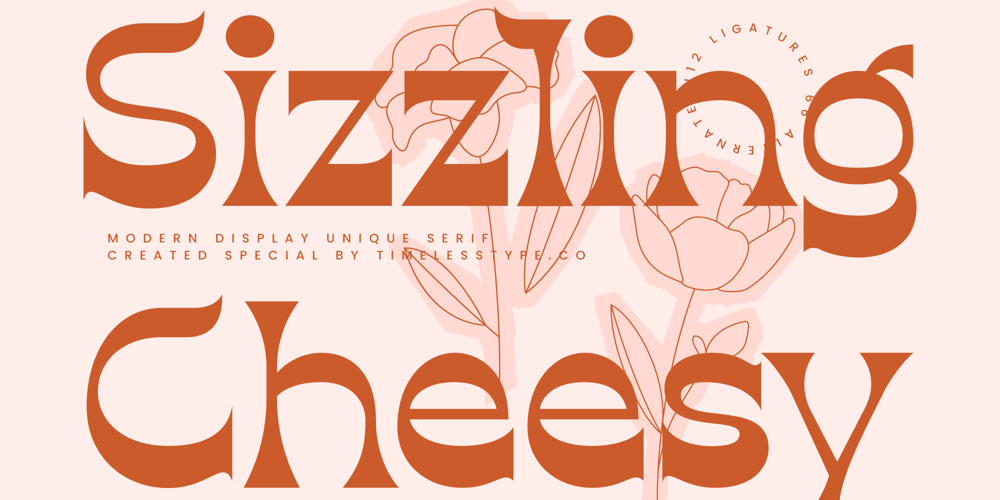
Sizzling Cheesy
Sizzling Cheesy font
Sizzling Cheesy Font Family was designed by Heru Utama Putra and published by Timelesstype Studio. Sizzling Cheesy contains 1 styles and family package options. Sizzling Cheesy – Modern Display Unique Serif , from Timelesstype , Suitable for any projects such as: logos, branding projects, homeware designs, product packaging, mugs, quotes, posters, shopping bags, t-shirts, book covers, name card, invitation cards, greeting cards, label, photography, watermark, special events, and all your other luxury and beautiful projects that need a Luxury Serif taste.